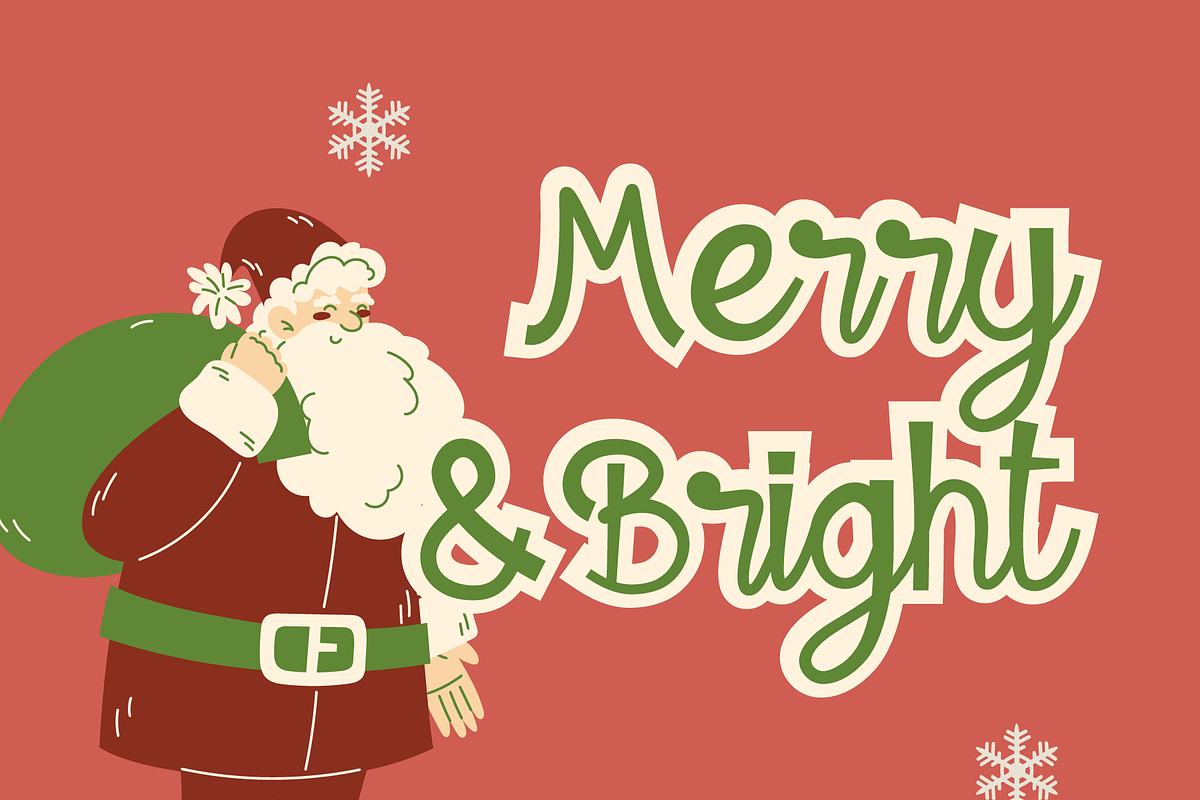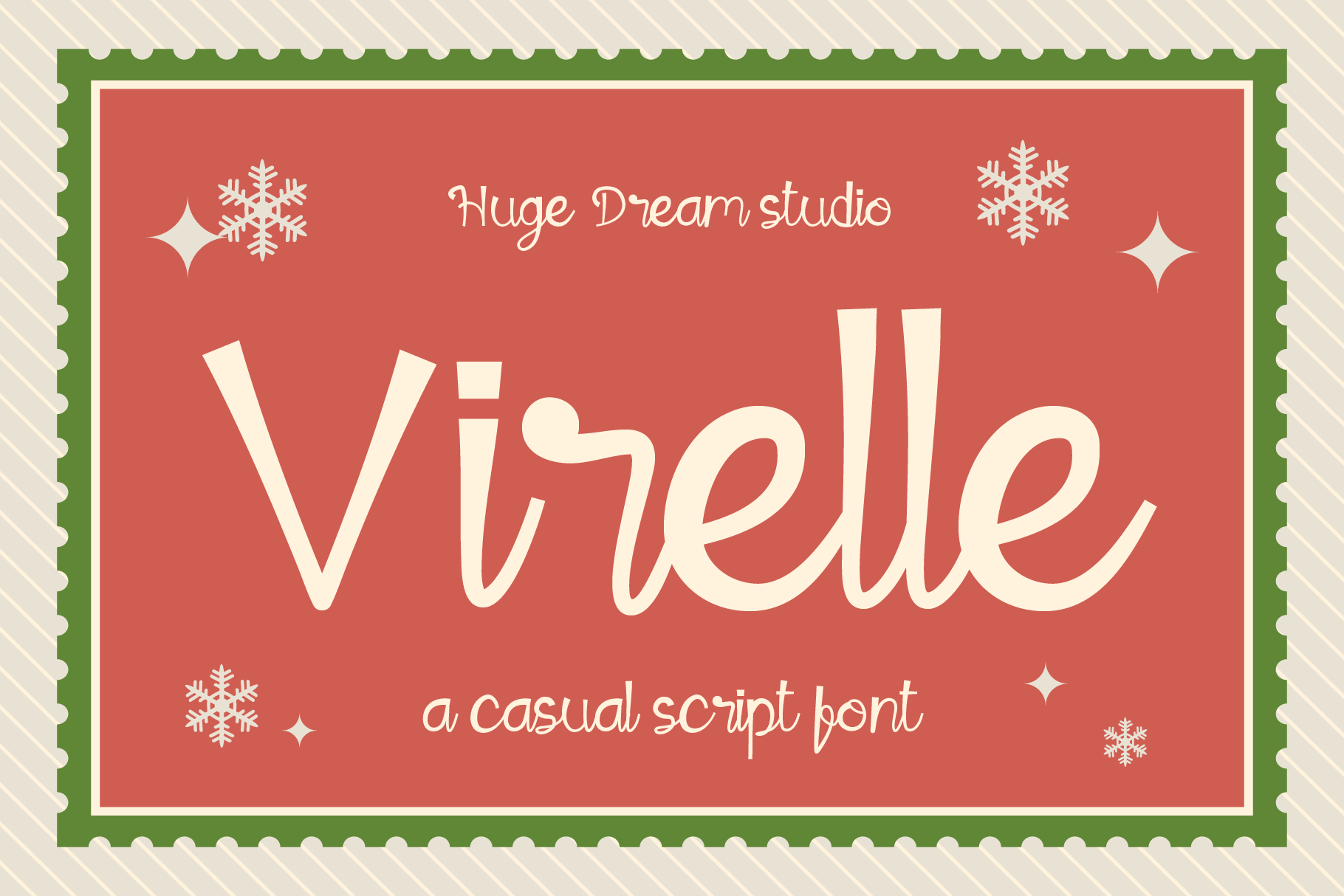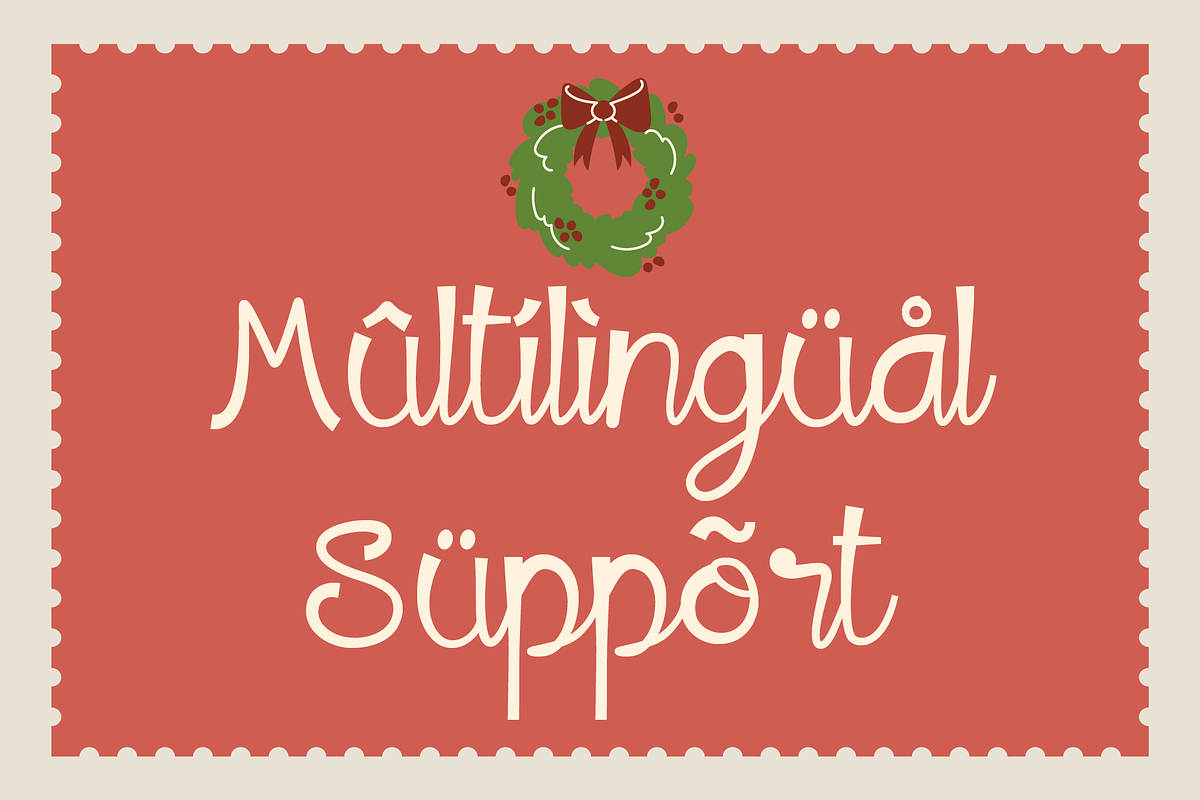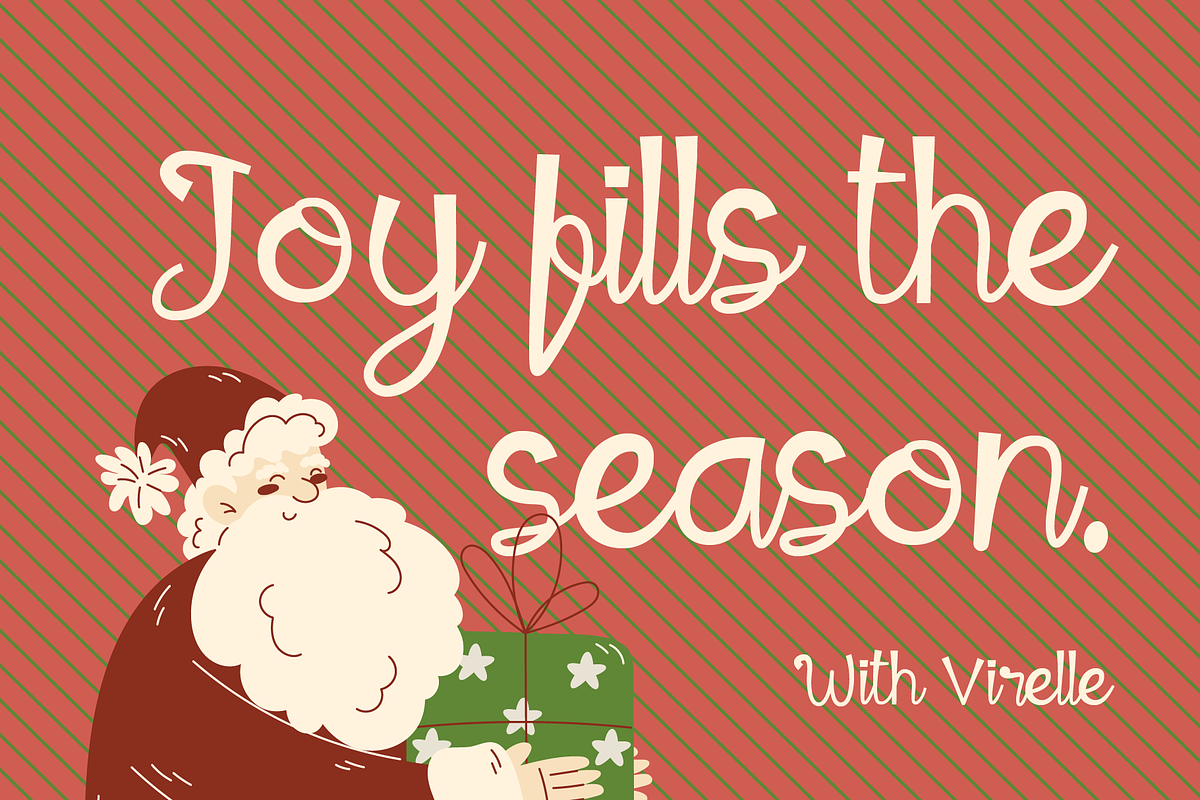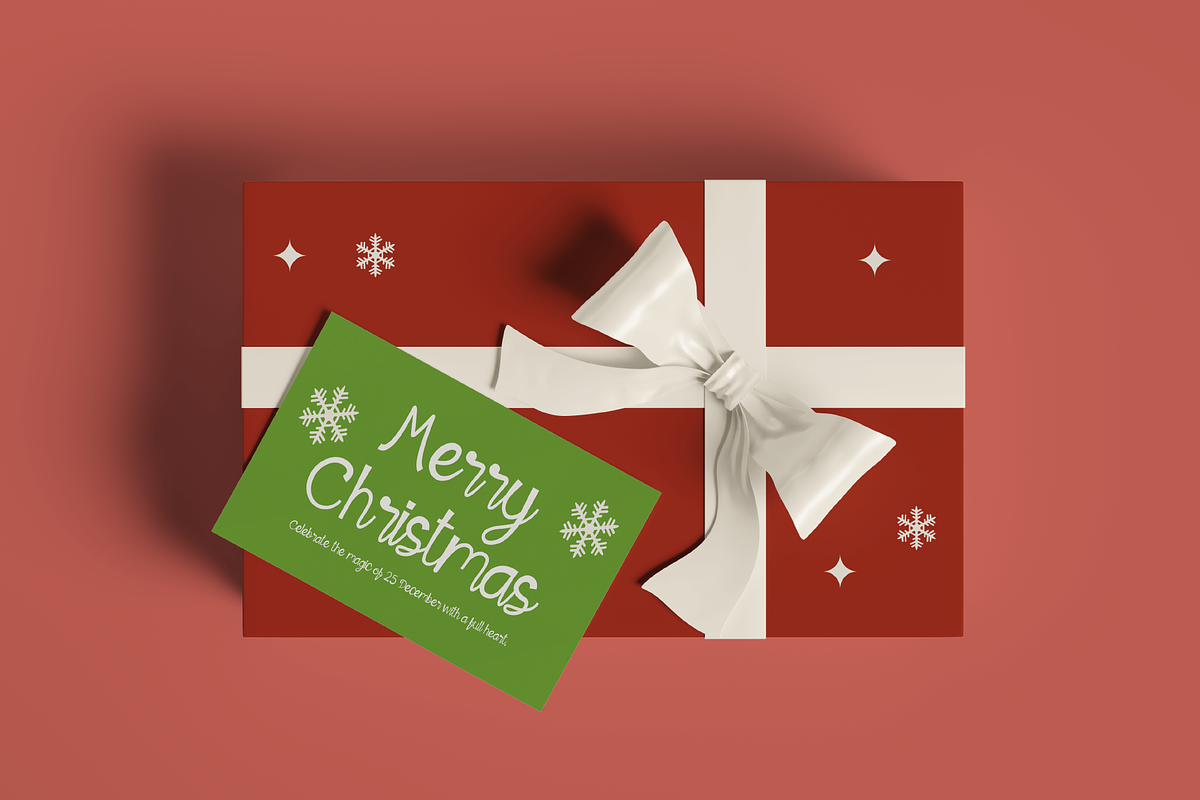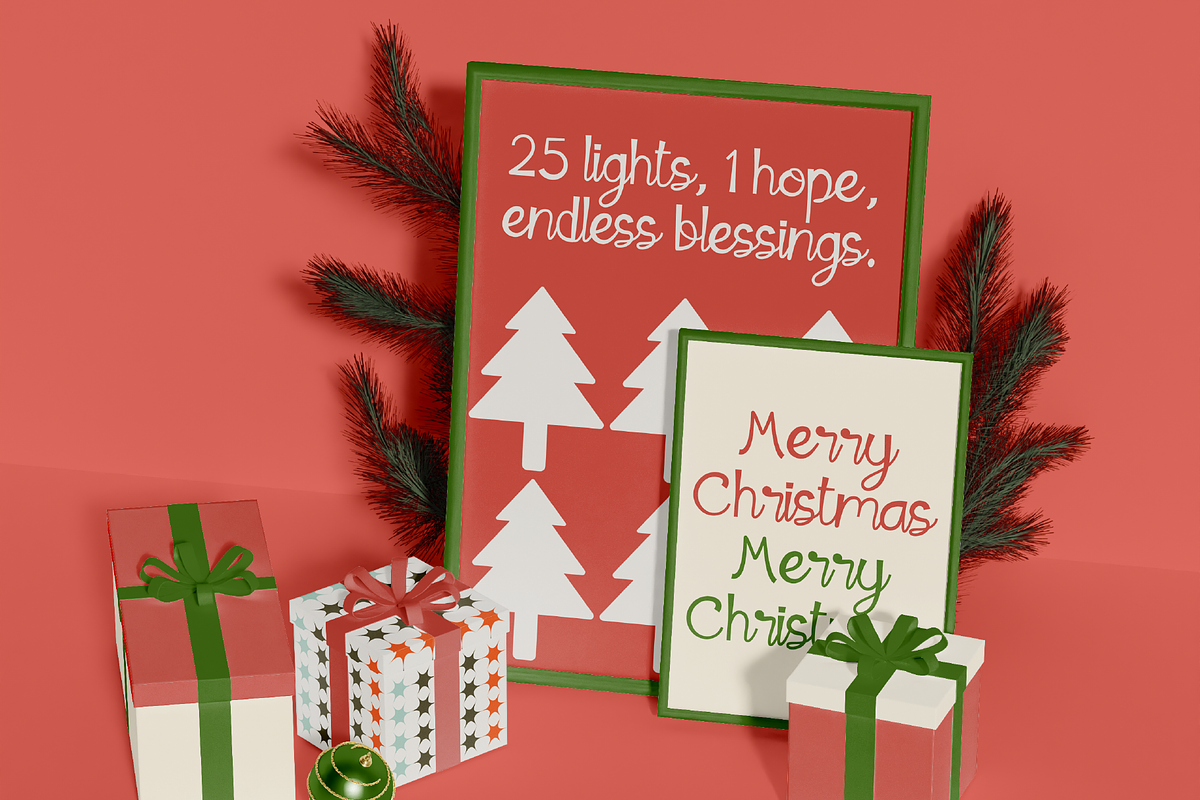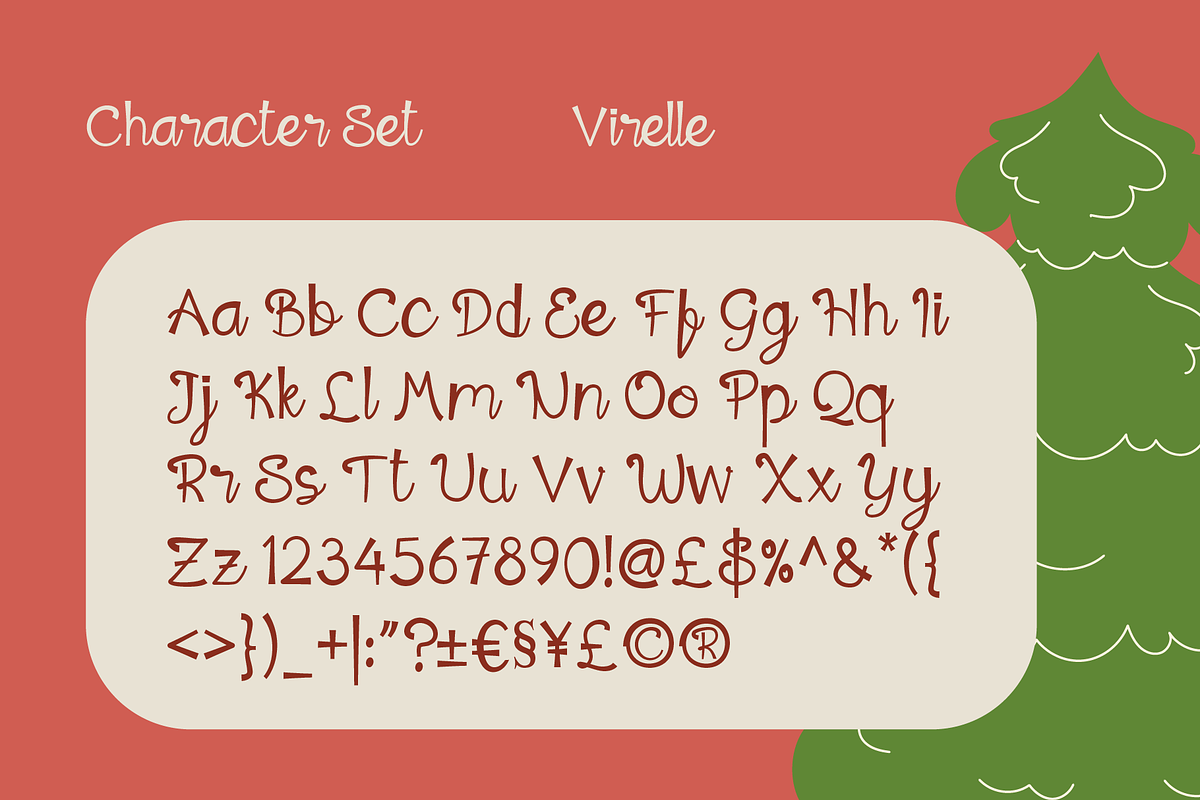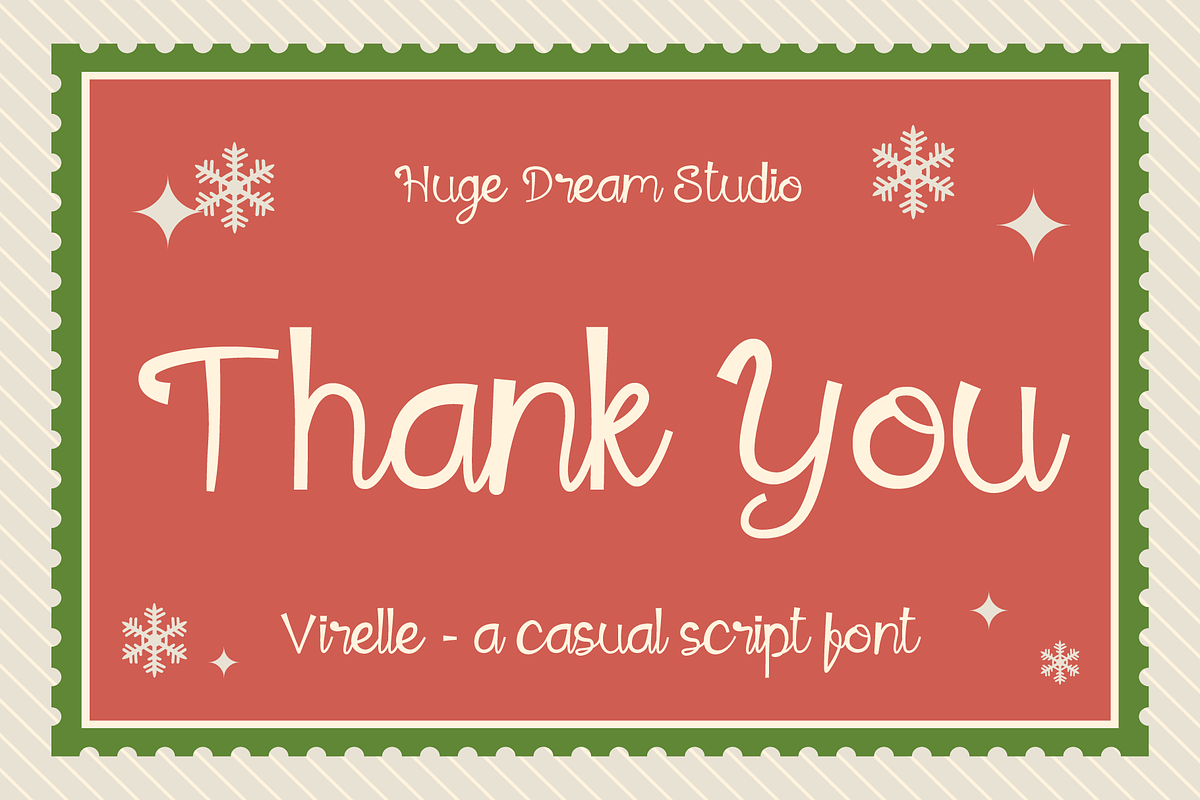
Virelle – A Casual Script Font
Virelle – A Casual Script Font is a playful Christmas-inspired typeface filled with warmth, joy, and festive charm. Featuring bouncy strokes, smooth curves, and a friendly handwritten feel, Virelle captures the cheerful spirit of the holiday season while staying casual and easy to read.
Perfect for Christmas cards, holiday packaging, gift tags, seasonal branding, social media posts, and cozy winter designs, Virelle brings a touch of magic and happiness to every word. Whether you’re creating something cute, fun, or heart-warming, Virelle helps your designs feel merry, bright, and full of holiday cheer 🎄✨
Virelle – A Casual Script Font features:
- Punctuation & Numbers
Elevate and explore the design possibilities with this Pretty Script Font!